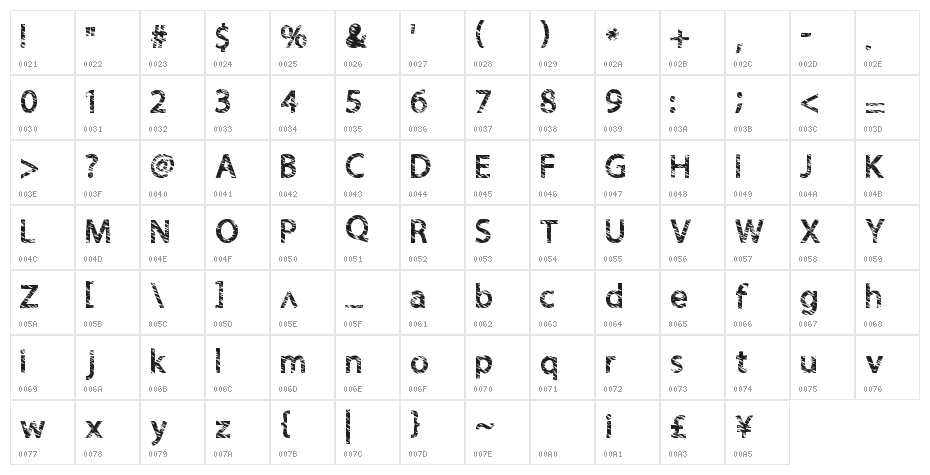
QuickCut Font
QuickCut Description
This font features a bold, distressed style with a scratchy texture that gives it a rugged, edgy appearance. The uppercase and lowercase letters are consistent in their boldness, while the numbers and special characters maintain the same distressed effect. The font's design is highly decorative, making it stand out with its unique, rough texture. The characters are well-defined, yet the distressed effect adds an element of unpredictability and artistic flair. This font is ideal for projects that require a strong visual impact and a sense of dynamism.
| Proposed Projects | Perfect for posters, album covers, branding for edgy products, or any design needing a bold, artistic touch. |